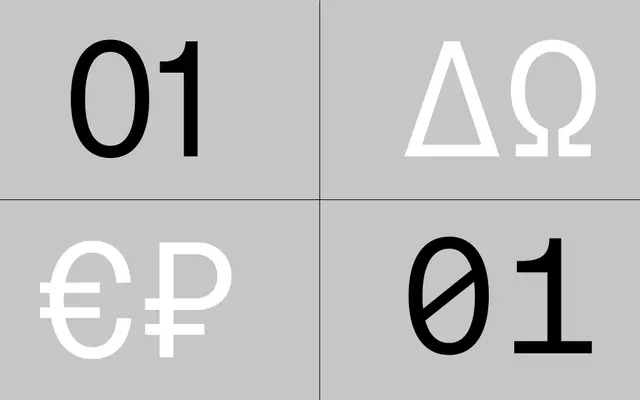
Oceanic Grotesk Compact specimen from Interval Type
A compact grotesque designed as a sans-serif companion to the Oceanic serif families, drawing on mid-20th-century modernist typography with an emphasis on neutrality.
Built to sit alongside Oceanic Text and share its vertical metrics, the family runs six weights from Light to Poster with matching italics, totalling twelve styles plus a variable font. Where the Oceanic serifs reference 18th and 19th-century fat faces and Bodoni-style contrast, this grotesque takes a cooler, more restrained modernist position. Extended Latin and Cyrillic coverage broadens its reach for multilingual publishing and branding work.
Self-described as a mid-20th-century modernist grotesque, guided by neutrality and simplicity, designed as a sans-serif companion to a high-contrast serif family.